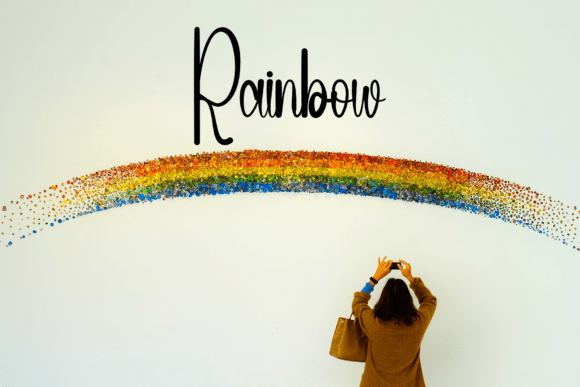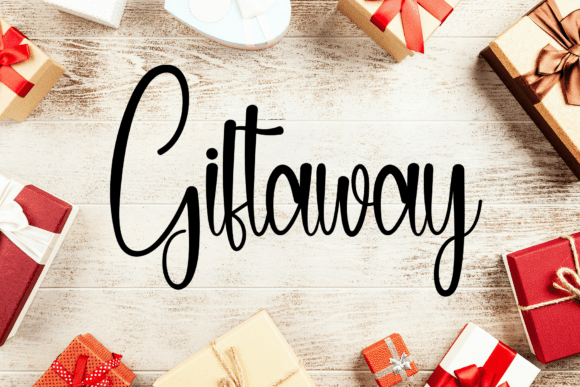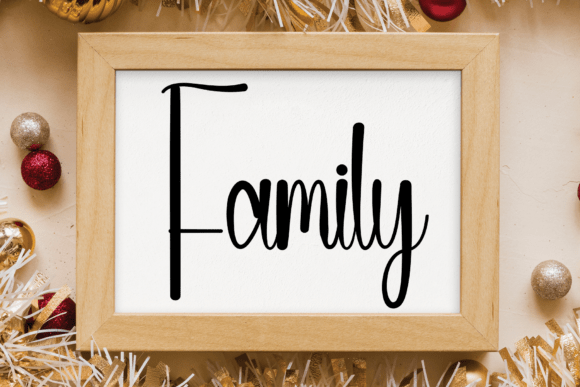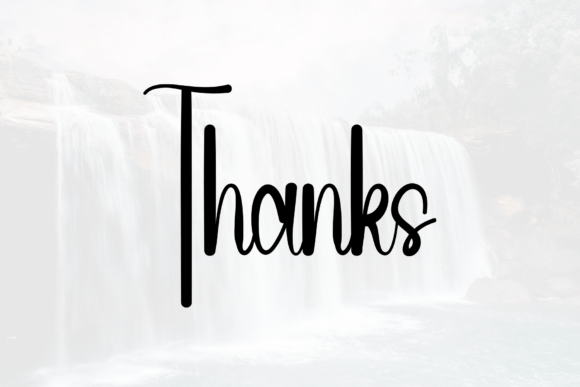
Introducing Carding Font: Effortless Elegance for Your Creative Projects
In the world of typography, few fonts manage to capture the essence of effortless elegance as beautifully as Carding. This high-quality, handmade script font is designed to bring a personal, organic touch to your creative projects, making it the perfect choice for designers and crafters looking to add a touch of sophistication to their work.
Inspired by Fluid, Natural Pen Strokes
Carding is inspired by the fluid, natural strokes of a pen, giving it a warm, approachable feel that balances perfectly with its tall, sophisticated silhouette. Each character features smooth, rhythmic curves that mimic authentic handwriting, creating a sense of movement and energy that draws the viewer in.
Perfect for a Variety of Creative Projects
Whether you’re designing a chic logo, a heartfelt greeting card, or a high-end packaging solution, Carding delivers a “best quality” aesthetic that feels both modern and timeless. Its versatility makes it an excellent choice for a wide range of creative projects, including:
- Branding: Use Carding to create a sophisticated brand identity that sets your business apart from the competition.
- Wedding Invitations: Add a touch of elegance to your wedding invitations and save-the-date cards with Carding’s beautiful, flowing script.
- Social Media Graphics: Elevate your social media presence with stunning graphics that showcase Carding’s unique charm.
- High-End Packaging: Use Carding to create luxurious packaging solutions that reflect your brand’s commitment to quality and style.
What Sets Carding Apart
So, what makes Carding such a standout font? Here are just a few of the key features that set it apart:
- Handmade with love: Carding is a carefully crafted, handmade font that is designed to bring a personal touch to your creative projects.
- Unique character: Each character in Carding features smooth, rhythmic curves that mimic authentic handwriting, giving it a distinctive and charming personality.
- High-quality design: Carding is designed to deliver a “best quality” aesthetic that feels both modern and timeless, making it perfect for high-end creative projects.
- Versatile: Carding is suitable for a wide range of creative projects, from branding and wedding invitations to social media graphics and high-end packaging.
Tips for Using Carding in Your Designs
To get the most out of Carding, here are a few tips to keep in mind:
- Pair it with contrasting fonts: Combine Carding with contrasting fonts to create visual interest and add depth to your designs.
- Experiment with colors: Carding looks stunning in a range of colors, so don’t be afraid to experiment and find the perfect hue for your design.
- Pay attention to spacing: Make sure to adjust the spacing between characters to create a natural, flowing look that showcases Carding’s unique charm.